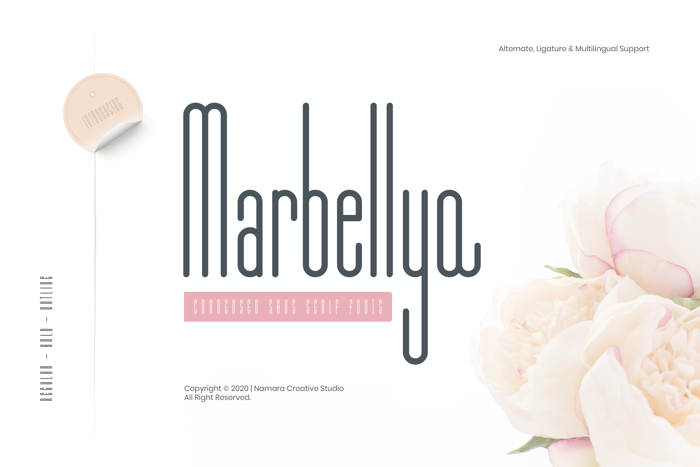
Marbellya Condensed Sans Serif Font
Marbellya is Condensed Sans Serif Font with luxurious style. Available in 3 style Regular, Bold and Outline included alternate, ligature and multilingual support. It's perfect for headlines, logos, quotes, packaging magazine covers, editorial design, and many more project with suitable purpose!